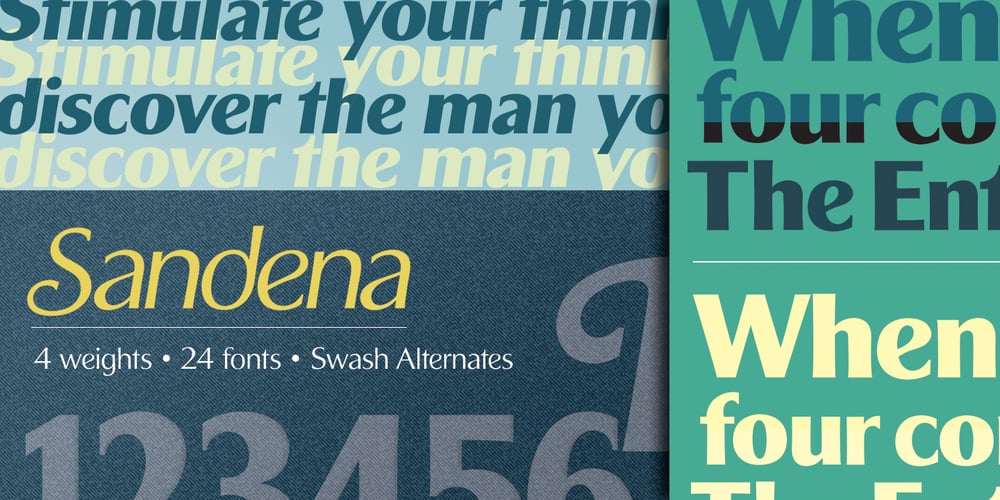
Sandena Font Family was designed by Paul Brent and published by Polyglyphic. Sandena contains 24 styles and family package options. Sandena began as an attempt at a harmonic convergence between the classic lines of Palatino and the curved flair of Optima – both favorites of mine from the great Hermann Zapf. As I’ve always loved the Swash characters of the 50’s and 60’s letterforms, I incorporated these alternatives to offer the more complete package that you see here – a humanist font in the truest calligraphic sense. This OpenType font family comes in four weights and includes condensed and Swash Cap alternates. Sandena offers multiple-character foreign language support and is being offered in a number of packages best-tailored for your unique application.